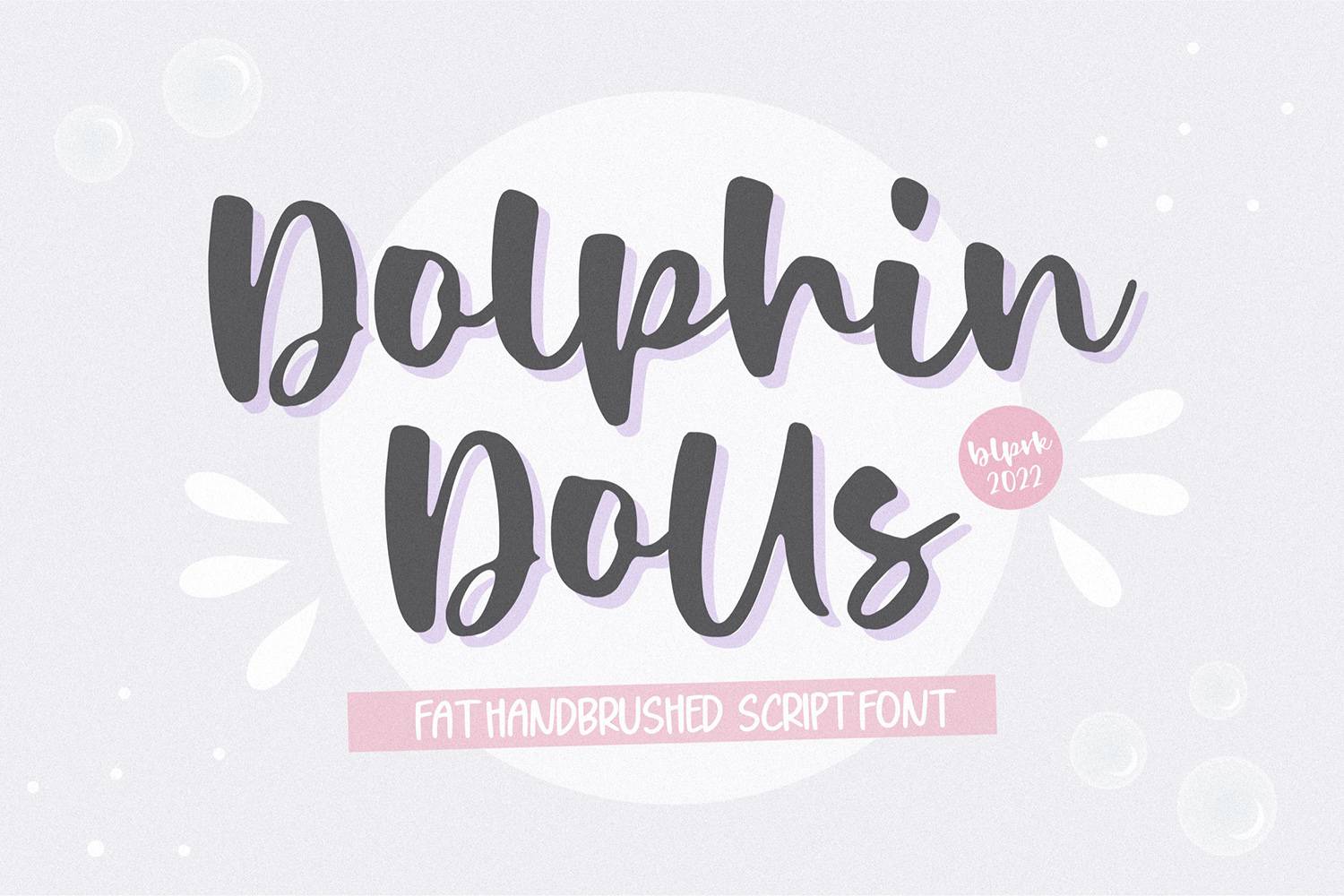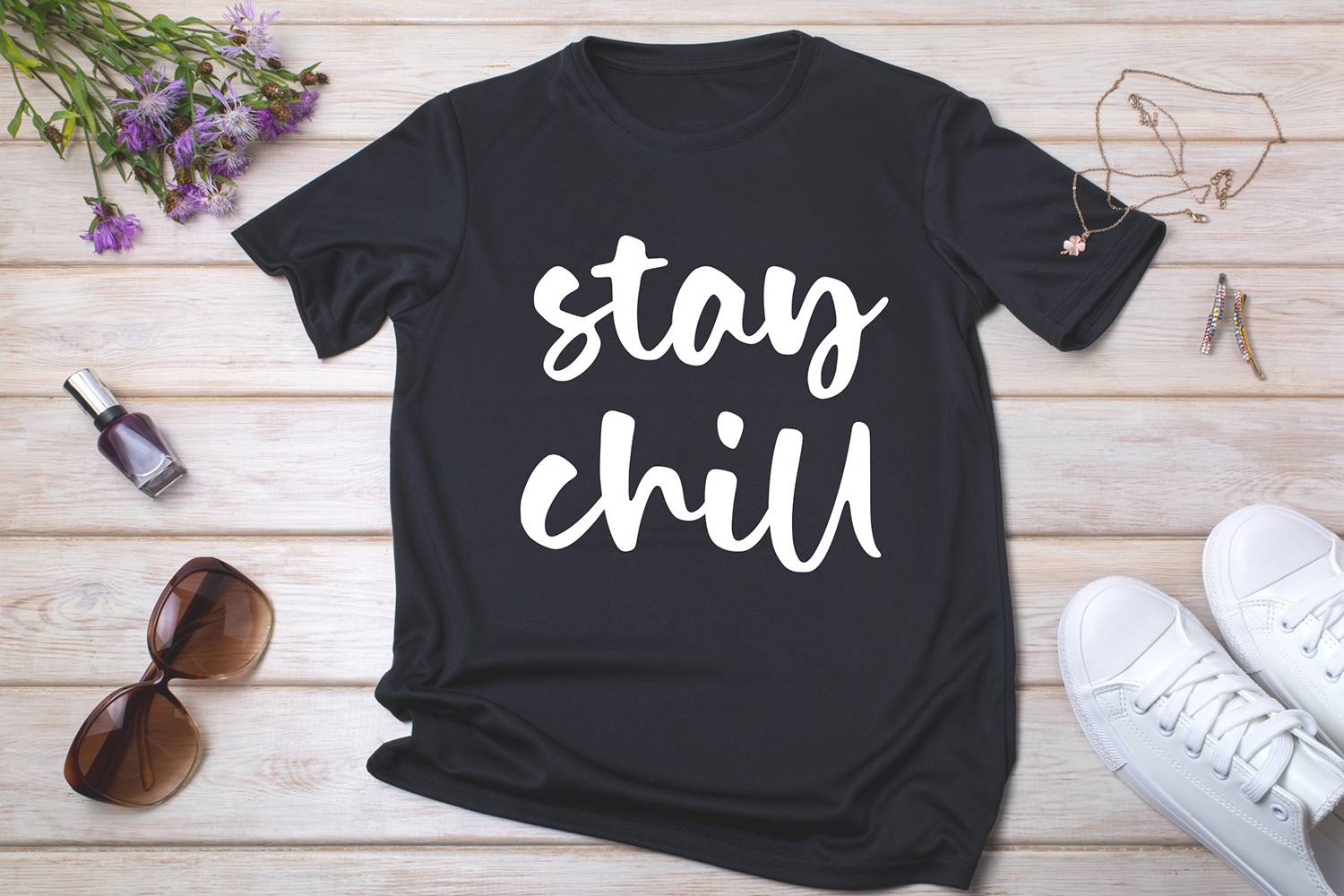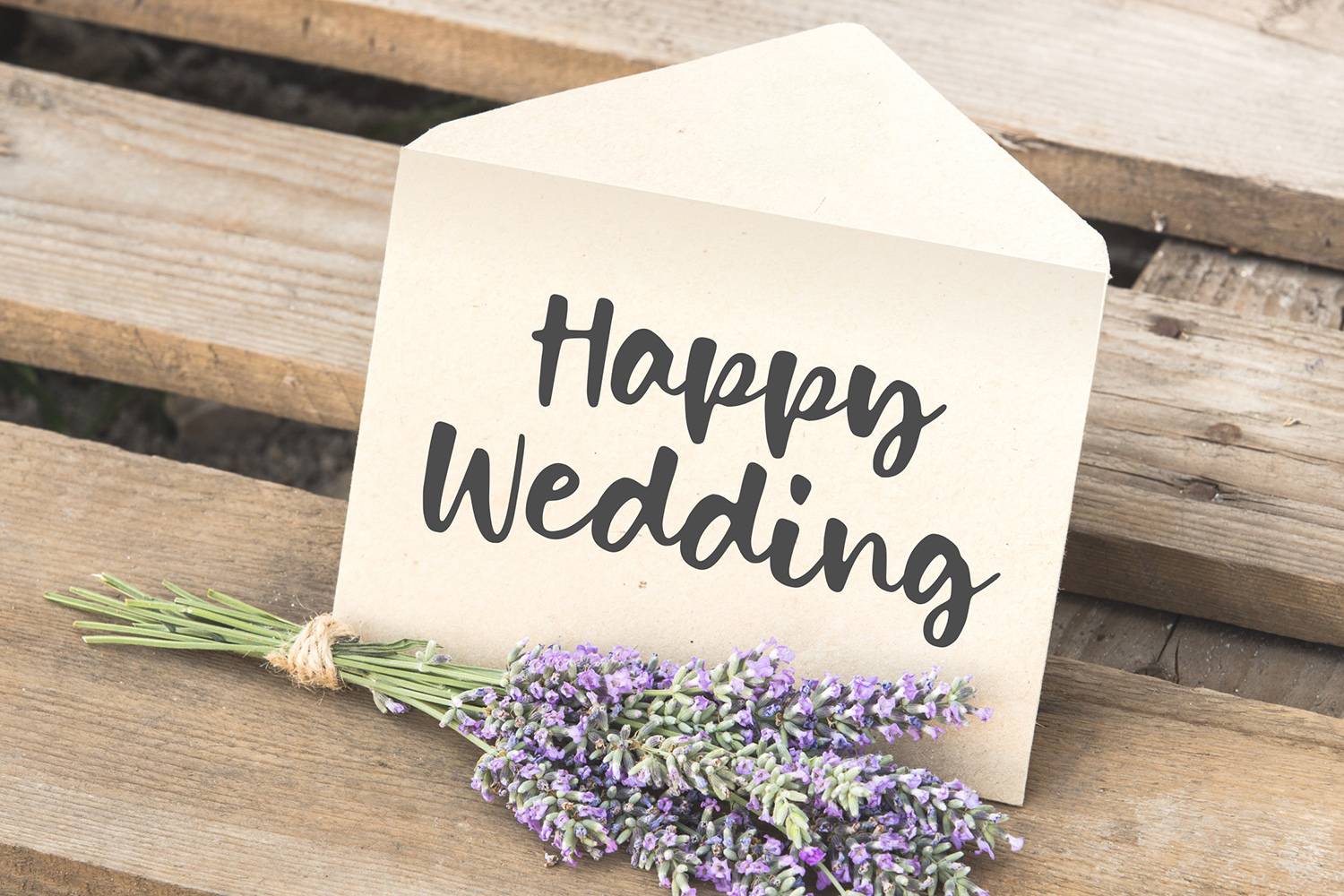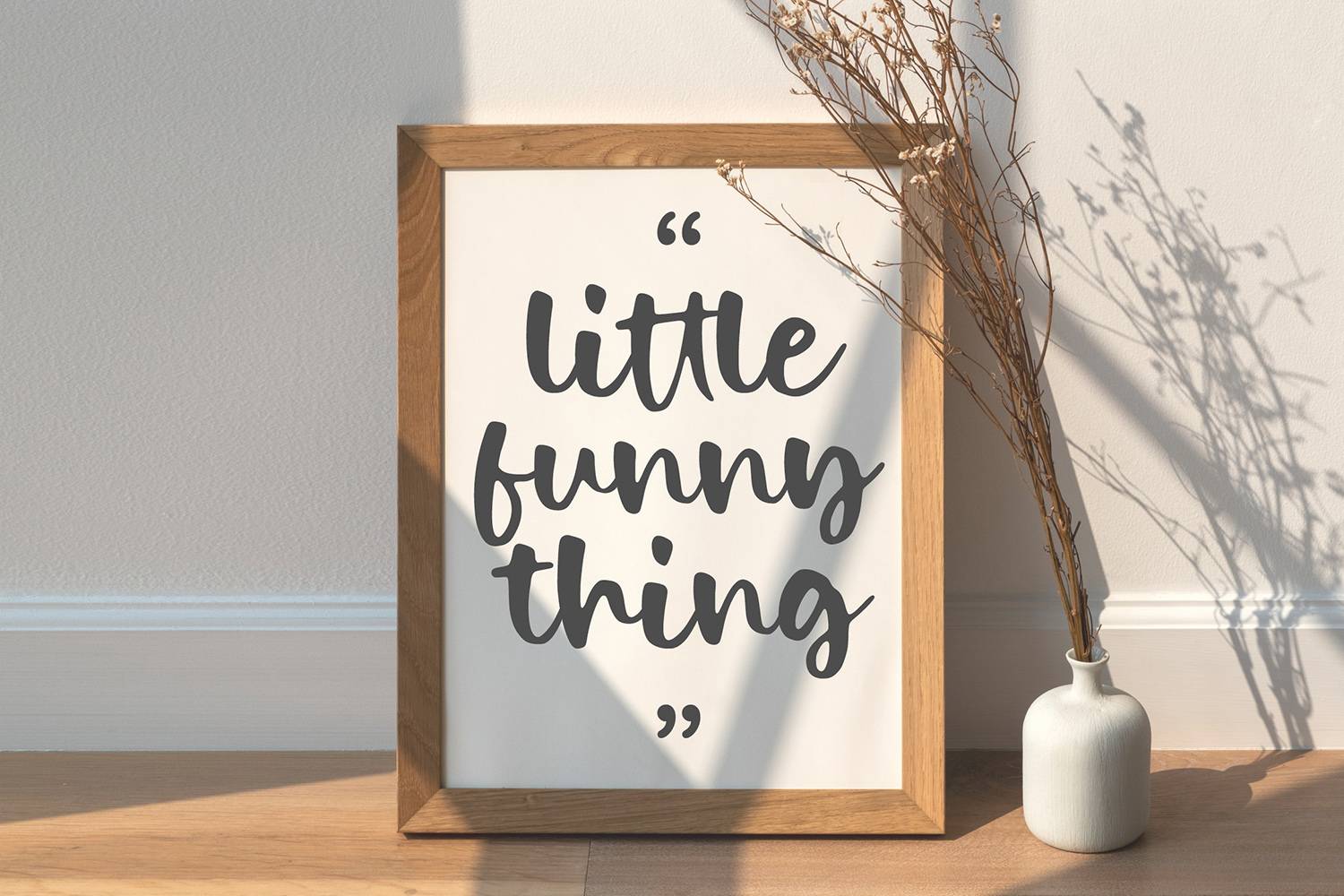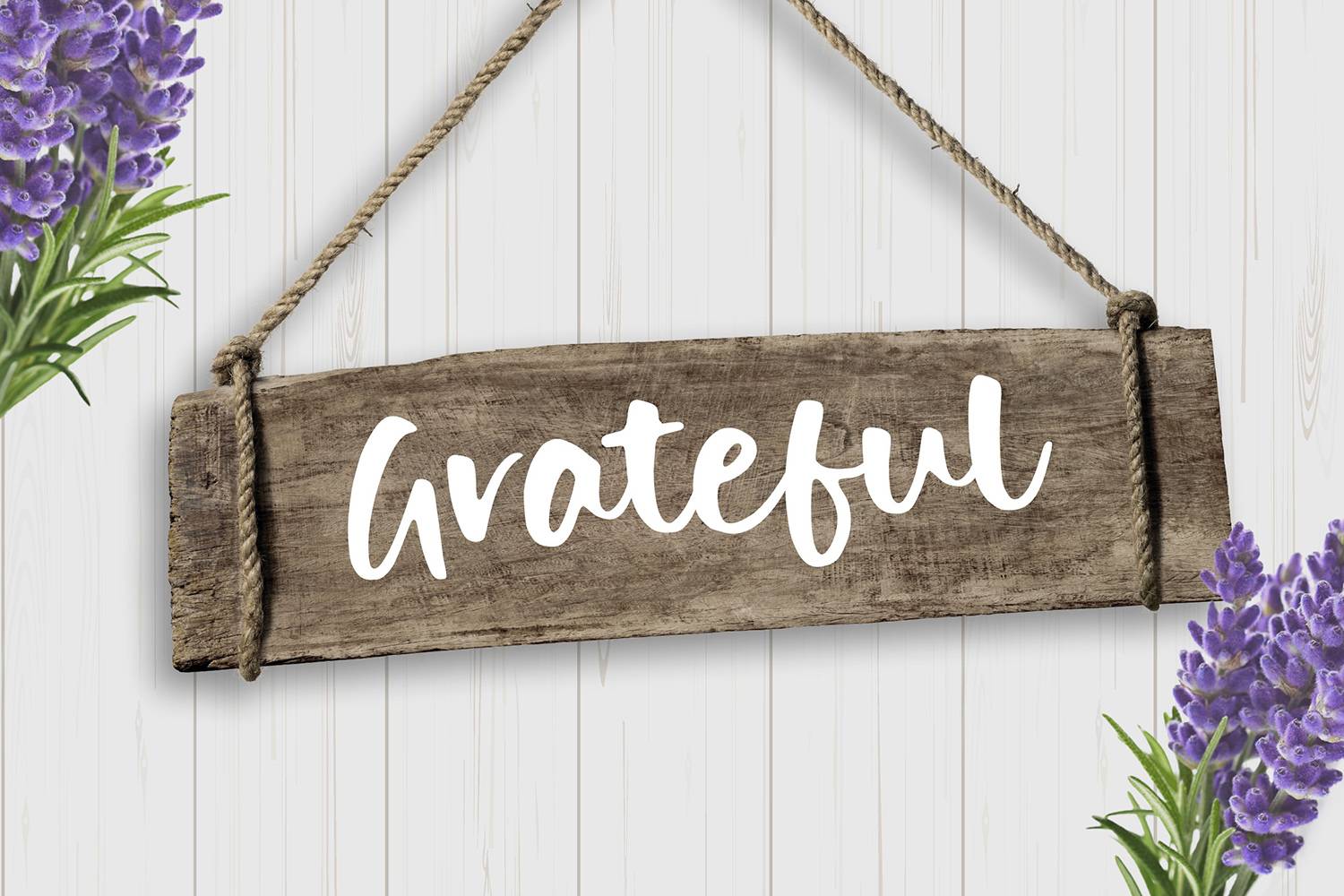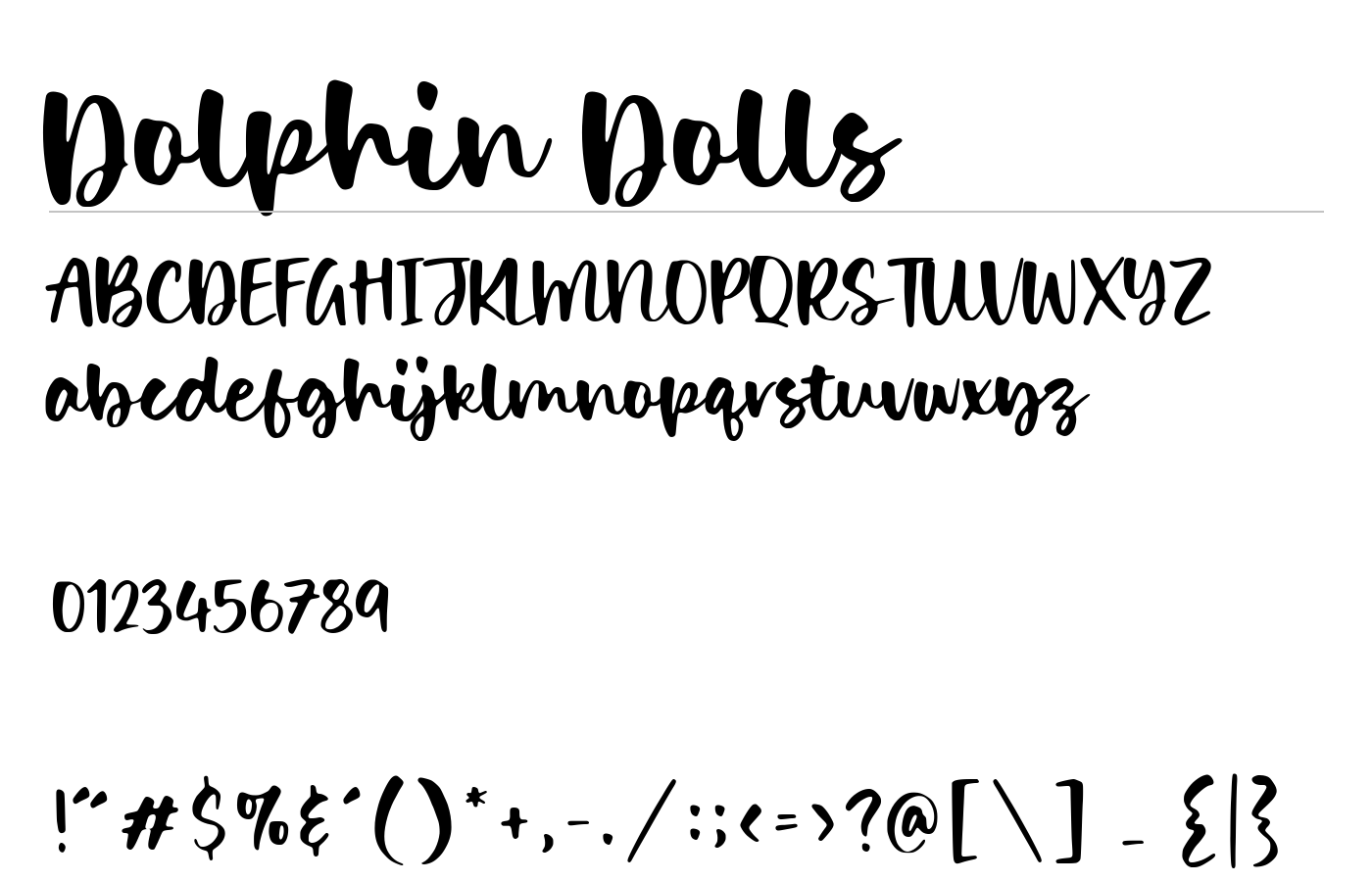
Dolphin Dolls is a lively and playful script font with a friendly hand-drawn feel, featuring smooth, rounded strokes and a bold weight that adds warmth and personality. Its casual, brush-like style works wonderfully for creative branding, invitations, and social media, lending an inviting and approachable charm to any design. This font shines best in headlines and logos where a fun, informal, yet confident tone is desired.
Dolphin Dolls Font
About Dolphin Dolls Font